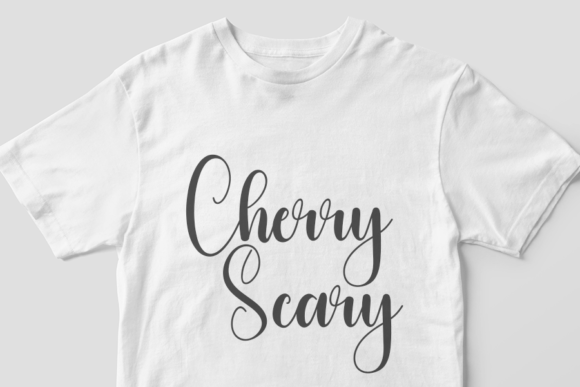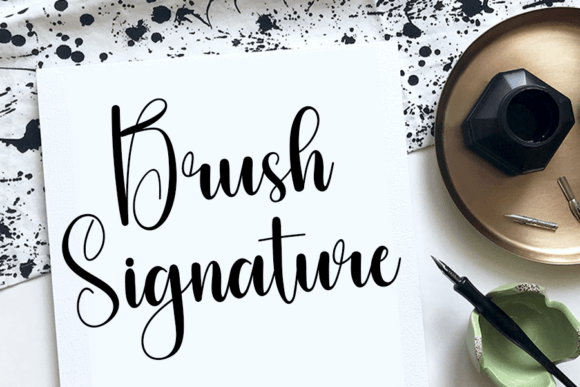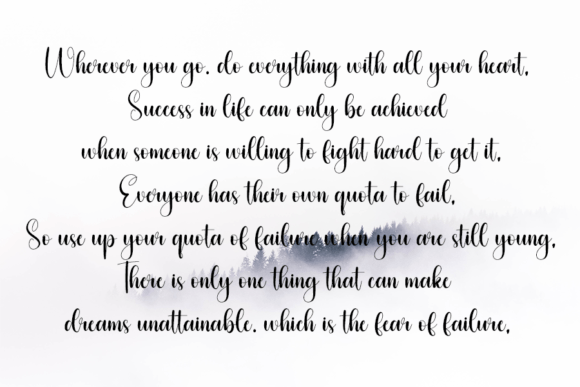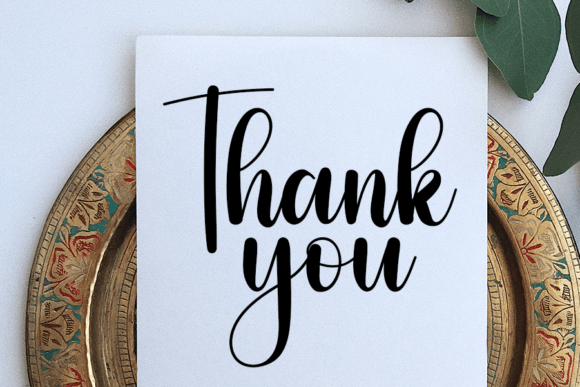
Introducing Farmhouse Font: A Delicate Handwritten Style for Unique Designs
Are you a designer or crafter looking for a font that adds a touch of elegance and whimsy to your projects? Look no further than Farmhouse Font, a beautiful handwritten font carefully crafted for a cool and unique design. In this article, we’ll explore the features and benefits of Farmhouse Font, and how it can be used to elevate your designs.
Farmhouse Font is a delicate handwritten font that exudes a sense of charm and sophistication. Its carefully crafted letters are perfect for adding a personal touch to a variety of design projects, from letters and invitations to food products and titles. With its unique and elegant style, Farmhouse Font is sure to make your designs stand out.
Features of Farmhouse Font
So, what makes Farmhouse Font so special? Here are just a few of its key features:
- Handwritten style: Farmhouse Font is a carefully crafted handwritten font that mimics the look and feel of handwritten letters.
- Delicate and elegant: The font features delicate and elegant lettering that adds a touch of sophistication to any design.
- Unique and quirky: Farmhouse Font has a unique and quirky style that’s perfect for designers and crafters who want to add a personal touch to their projects.
- Versatile: This font can be used for a wide range of design projects, from letters and invitations to food products and titles.
Uses for Farmhouse Font
So, how can you use Farmhouse Font in your designs? Here are just a few ideas to get you started:
- Invitations and greeting cards: Add a personal touch to your invitations and greeting cards with Farmhouse Font’s elegant and handwritten style.
- Food products and packaging: Use Farmhouse Font to add a touch of whimsy and charm to your food products and packaging.
- Titles and headings: Farmhouse Font is perfect for titles and headings, adding a touch of elegance and sophistication to any design.
- Blogging and social media: Use Farmhouse Font to add a personal touch to your blog posts and social media graphics.
Benefits of Using Farmhouse Font
So, why should you choose Farmhouse Font for your designs? Here are just a few benefits:
- Unique and eye-catching: Farmhouse Font is a unique and eye-catching font that will make your designs stand out.
- Elegant and sophisticated: The font’s elegant and sophisticated style is perfect for designers and crafters who want to add a touch of class to their projects.
- Easy to read: Despite its delicate and handwritten style, Farmhouse Font is easy to read and understand.
- Versatile: Farmhouse Font can be used for a wide range of design projects, making it a great addition to any designer’s toolkit.
Here are a few tips for using Farmhouse Font in your designs:
- Use it sparingly: Farmhouse Font is a delicate font, so use it sparingly to avoid overwhelming your design.
- Pair it with other fonts: Farmhouse Font pairs well with other fonts, so don’t be afraid to experiment with different combinations.
- Experiment with colors: Farmhouse Font looks great in a variety of colors, so experiment with different hues to find the perfect look for your design.
Farmhouse Font is a beautiful and unique handwritten font that’s perfect for designers and crafters who want to add a touch of elegance and whimsy to their projects. With its delicate and elegant style, Farmhouse Font is sure to make your designs stand out. Whether you’re creating invitations, food products, titles, or more, Farmhouse Font is a great choice. So why not give it a try and see the difference it can make in your designs?